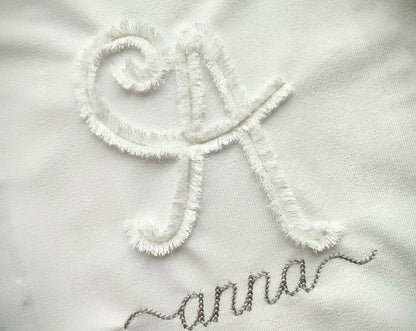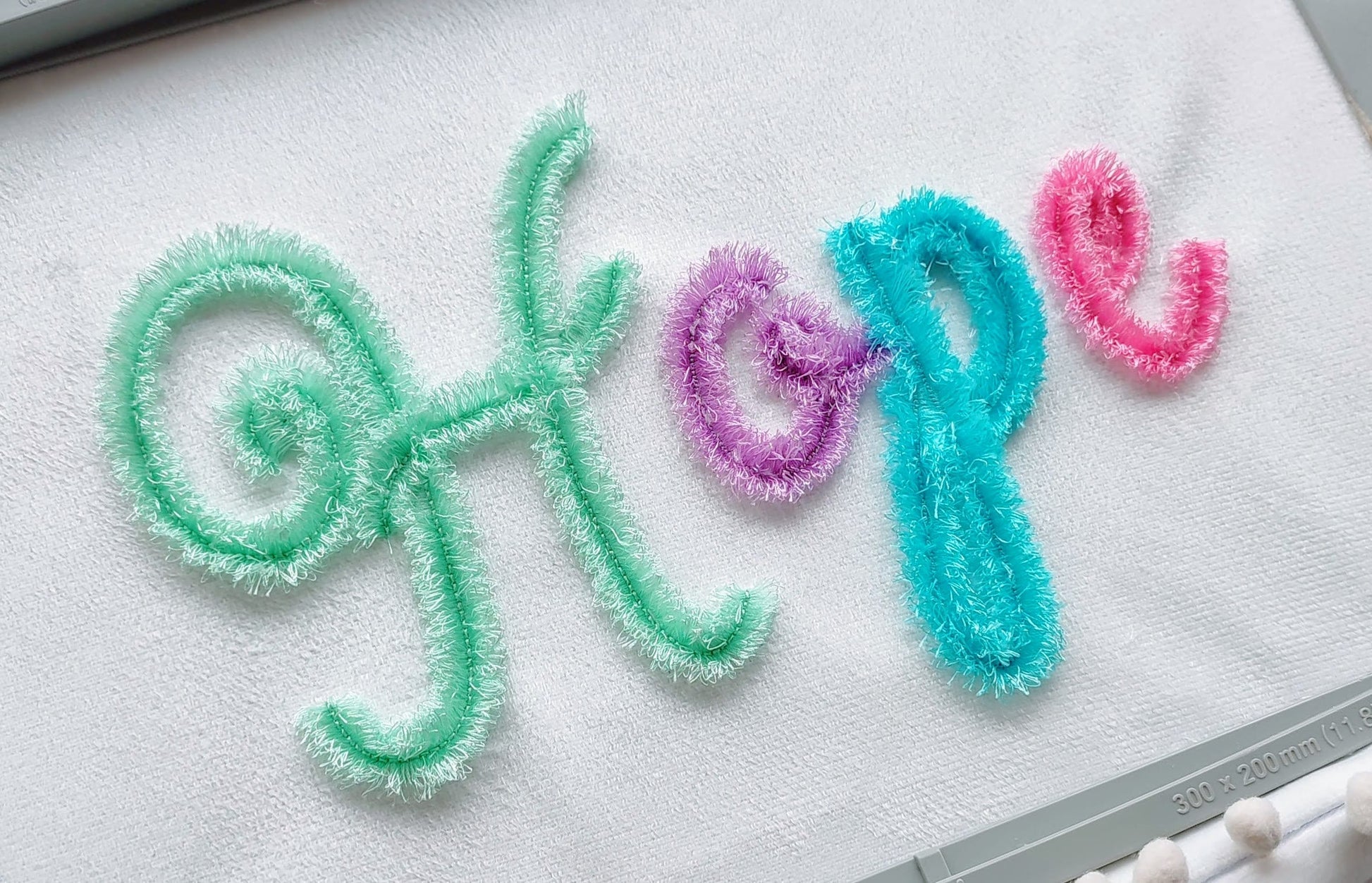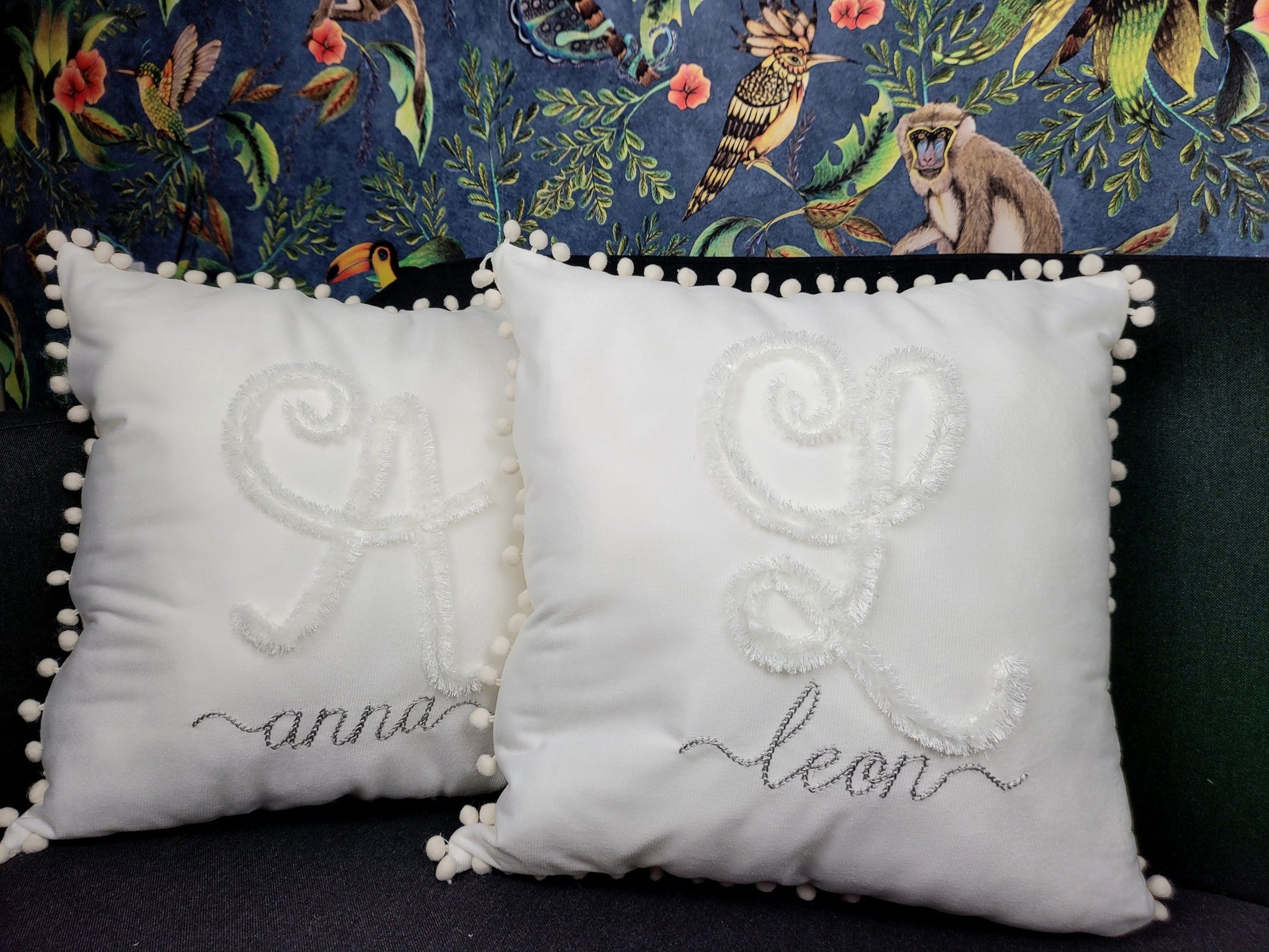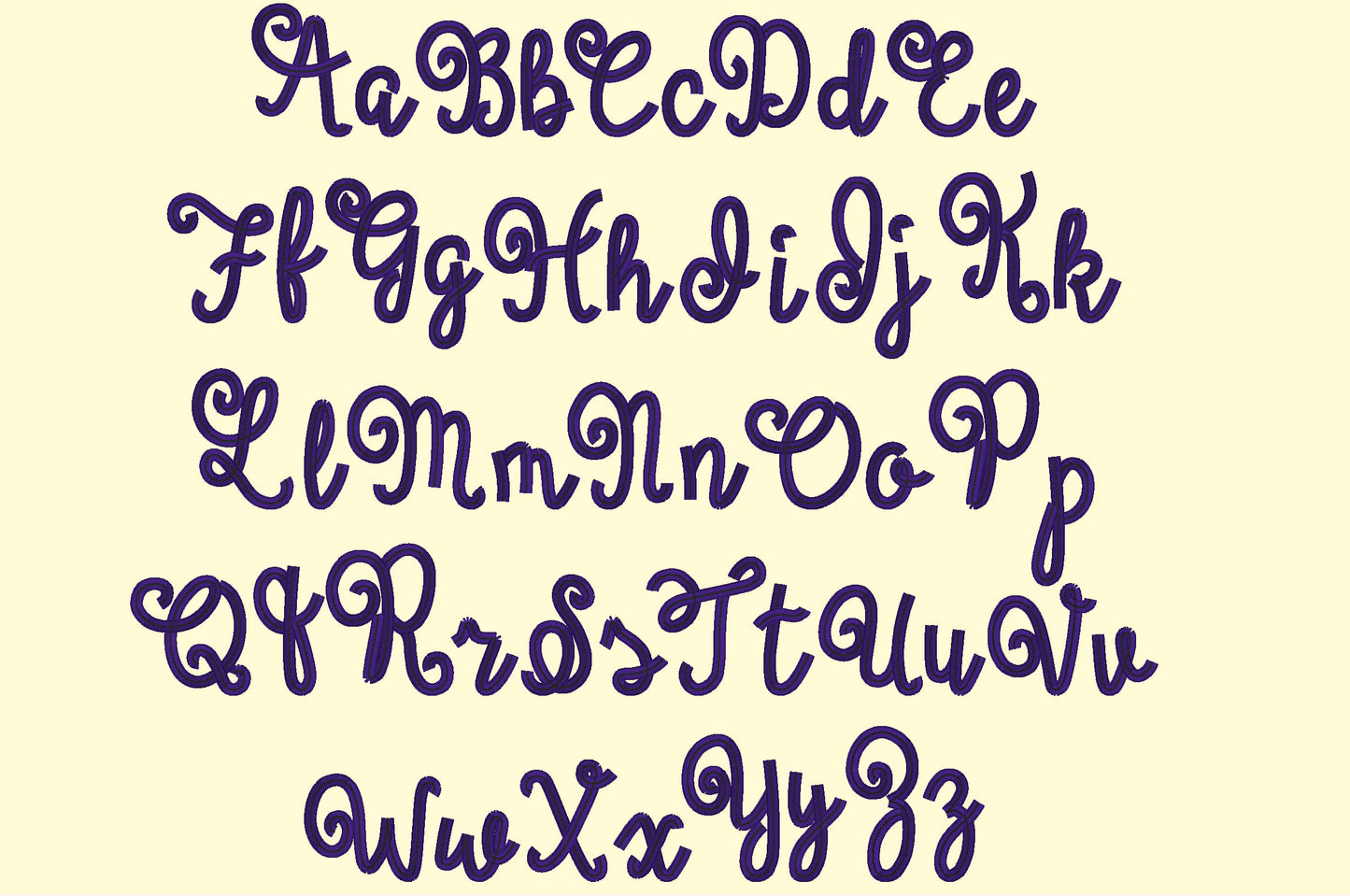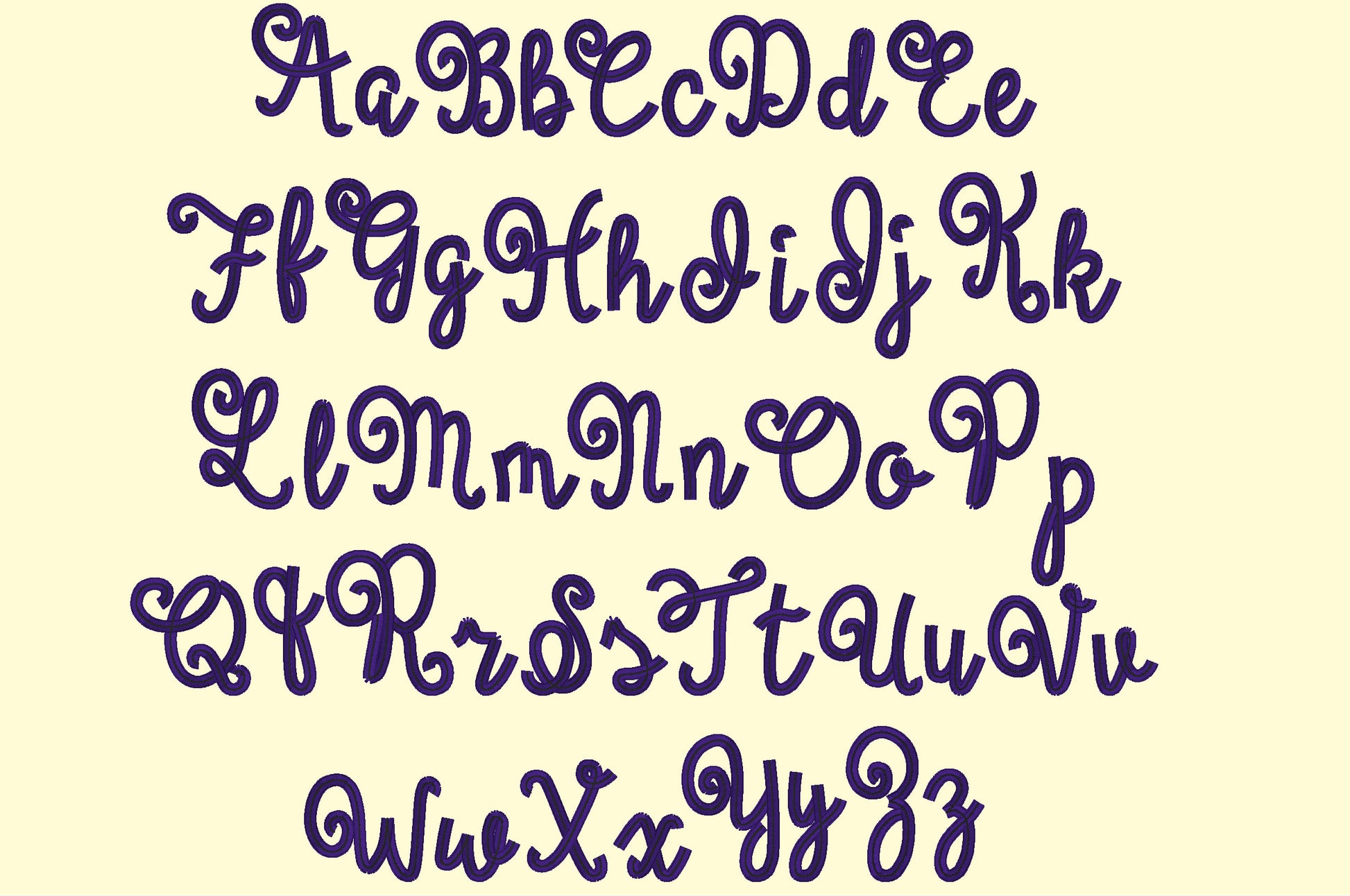
Big Extra Fringed Handwritten Font
Included: Uppercase A-Z, Lowercase a-z, Punctuation
A big, extra fluffy fringed font. Pretty for girls' pillows, sweatshirts, blankets and name decor.
Uppercase and lowercase letters and a dash. Six sizes: 3, 3.5, 4.5, 5.5, 6.5 and 7.2 inches. Extra dense fringe; add one more layer of strong stabilizer. Safe to wash.
• Big extra fringed font
• Uppercase and lowercase letters, dash
• 6 sizes, 3 to 7.2 in